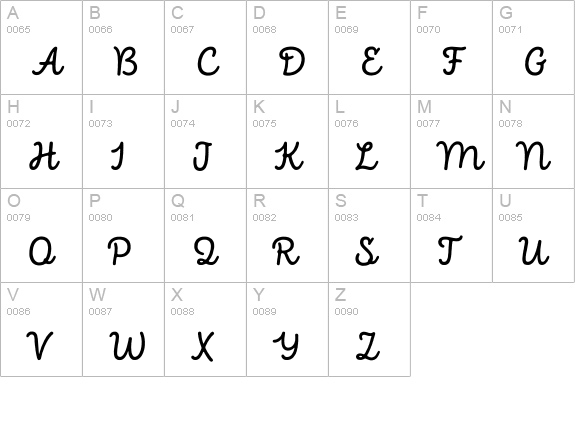
Intro Script B Base font is a stunning typeface that exudes elegance and sophistication. With its sleek lines and graceful curves, this font is perfect for adding a touch of charm to any design project. Whether you're working on a wedding invitation, a logo, or a branding project, Intro Script B Base font is sure to impress. The best part? This exquisite font is completely free to download at FontsMarket.com. So go ahead and elevate your designs with the beauty and grace of Intro Script B Base font today.